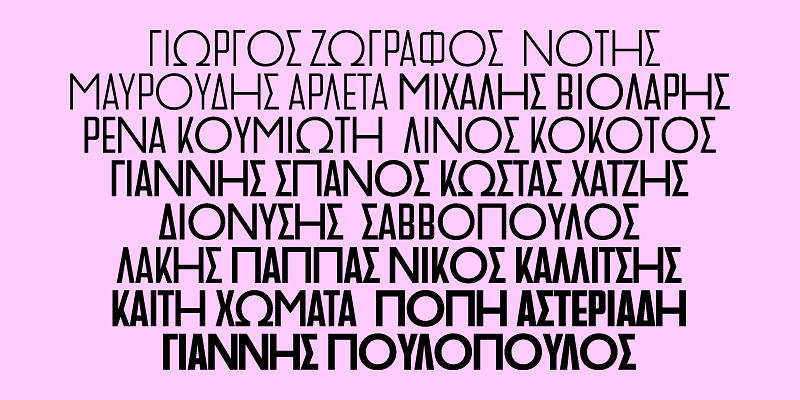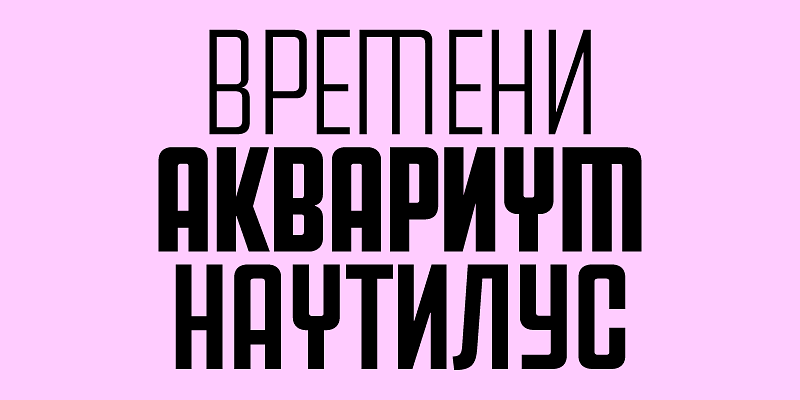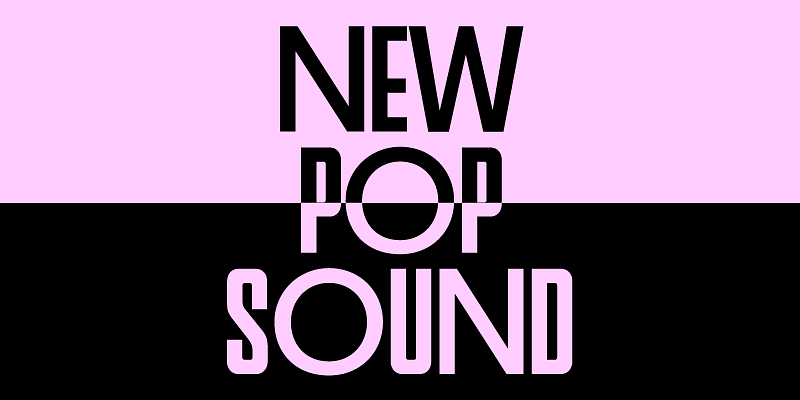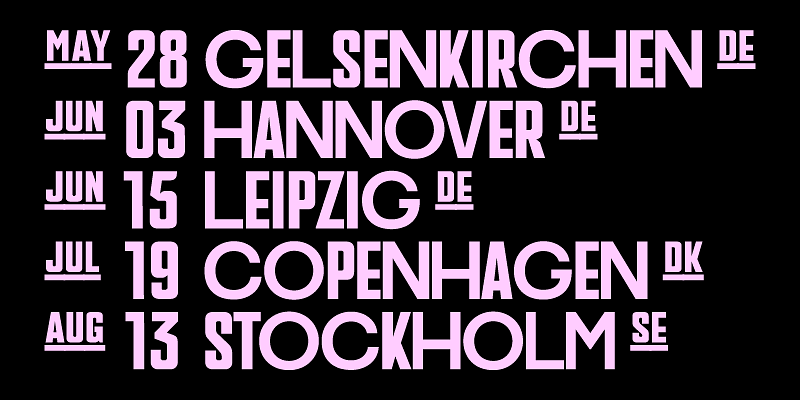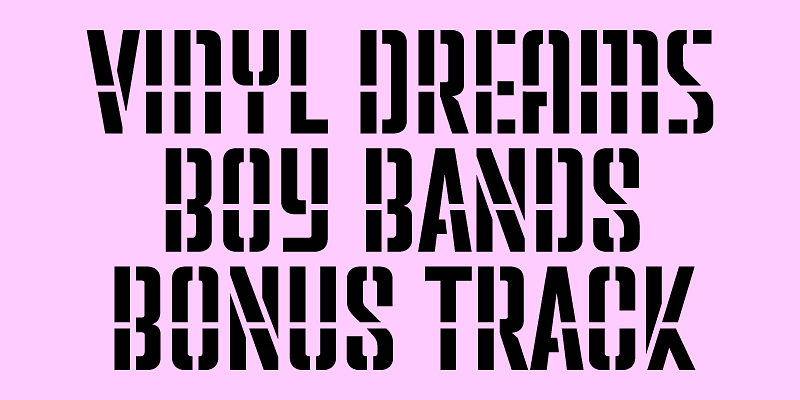
PF Venue takes its cues from several sans serif type styles of the twentieth century particularly the more subdued and sleek geometric styles of the Art Deco movement, characterised by the low and high-waisted monostroke designs. Venue is a quite large x-height set of 2 families with alternate letterforms, which manifest a unique texture when set in uppercase. The daring combination of non-uniform structures such as the normal narrow forms with the alternate wide forms exudes a striking eye-catching personality. Consider using these for posters, ads, book covers and imaginative fashion editorials.
Venue draws inspiration from numerous condensed grotesques used by music album covers since the fifties and for several decades to follow. Underlined by the avid necessity of the underground music scene for non conformity, expression, freedom of spirit, rule breaking and challenging preconceptions, this collection pays tribute to a rocker at heart!
The full collection includes 2 separate families Venue and Venue Condensed which support Latin, Greek and Cyrillic. Each family consists of 6 weights including Stencil and 5 sets of alternate letterforms.